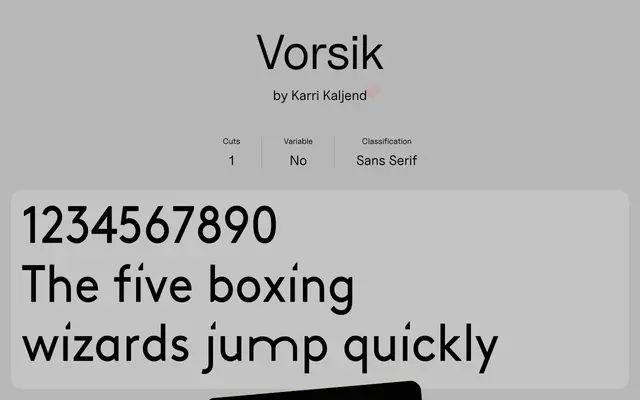
Vorsik
A single-cut sans-serif by Karri Kaljend, free for both personal and commercial use.
Vorsik is a one-cut sans-serif designed by Karri Kaljend and distributed freely through Uncut. With no variable axis, no italic and a single weight, it is a minimal offering suited to projects requiring a clean, unadorned sans. Licensing is unspecified beyond 'free', so direct confirmation from the creator is advised before use in sensitive commercial contexts.
Listed under Sans Serif on the foundry page; the single-cut offering and name suggest a straightforward grotesque without optical variants or variable axes.